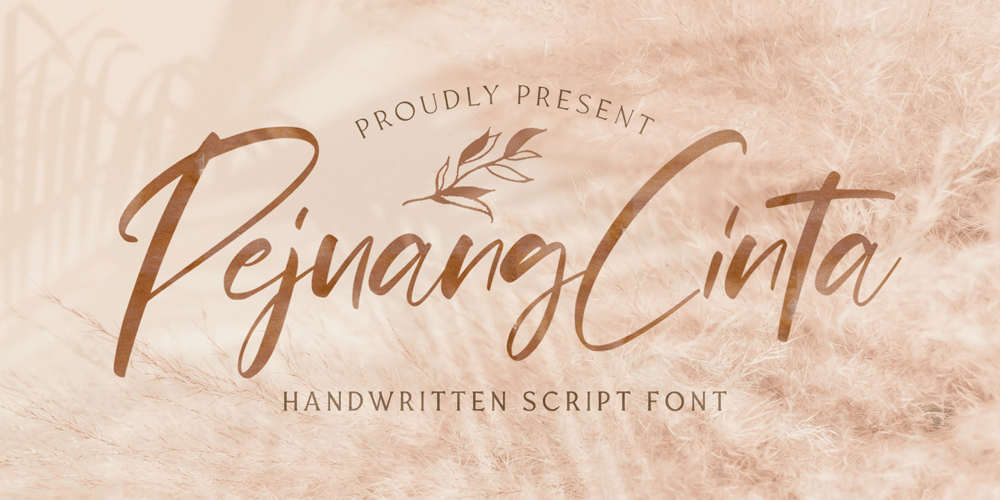
Pejuang Cinta Font Family was designed by Virgiawan Listanto and published by Stringlabs Creative Studio. Pejuang Cinta contains 1 styles and family package options. Pejuang Cinta is a Script Font with Handwritten Style. The Pejuang Cinta font made with digital brush pen strokes that making this font look authentic. This font is perfect for fashion brand, wedding invitation, business card, logo brand, signature, and then calligraphy.